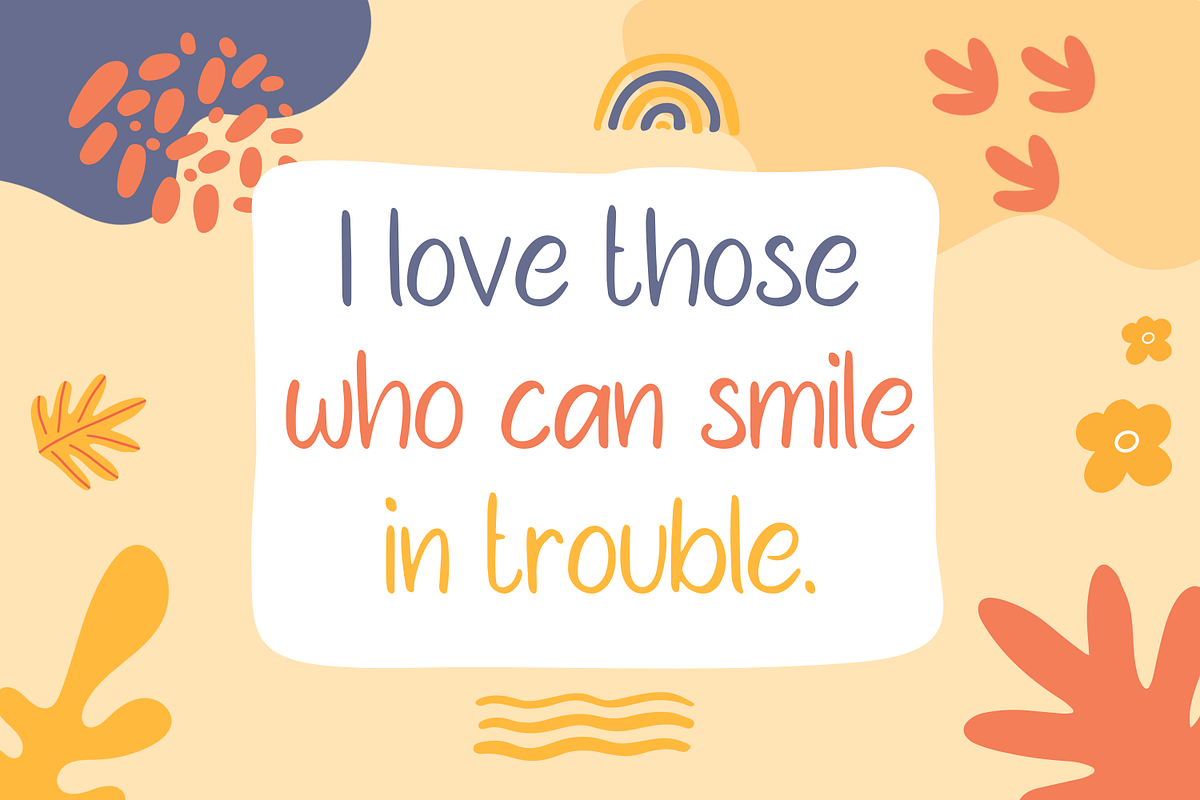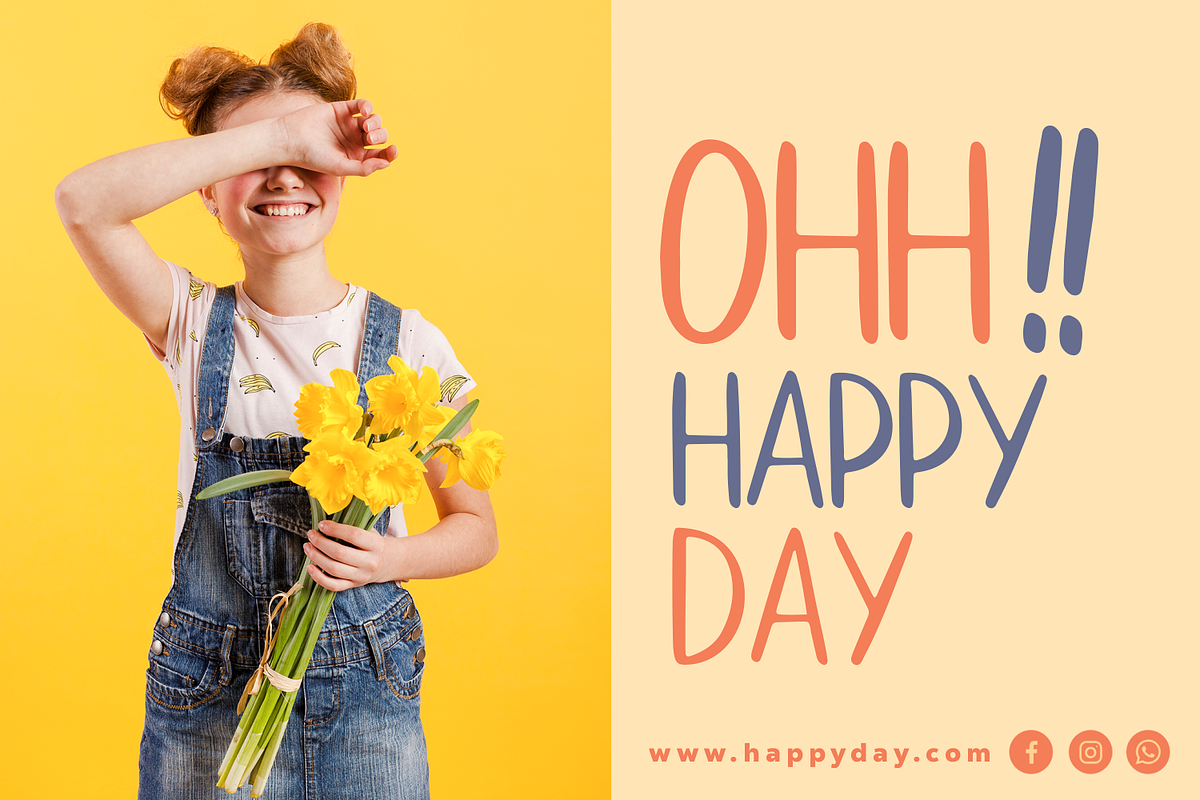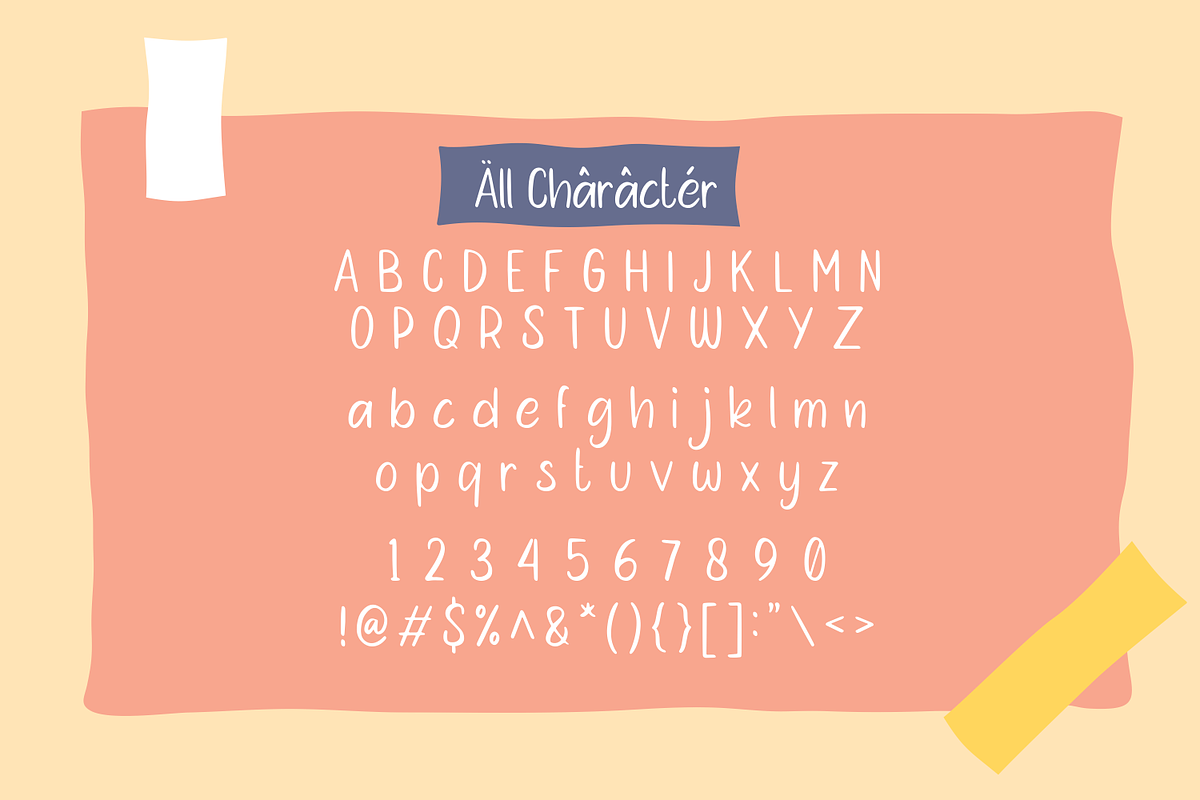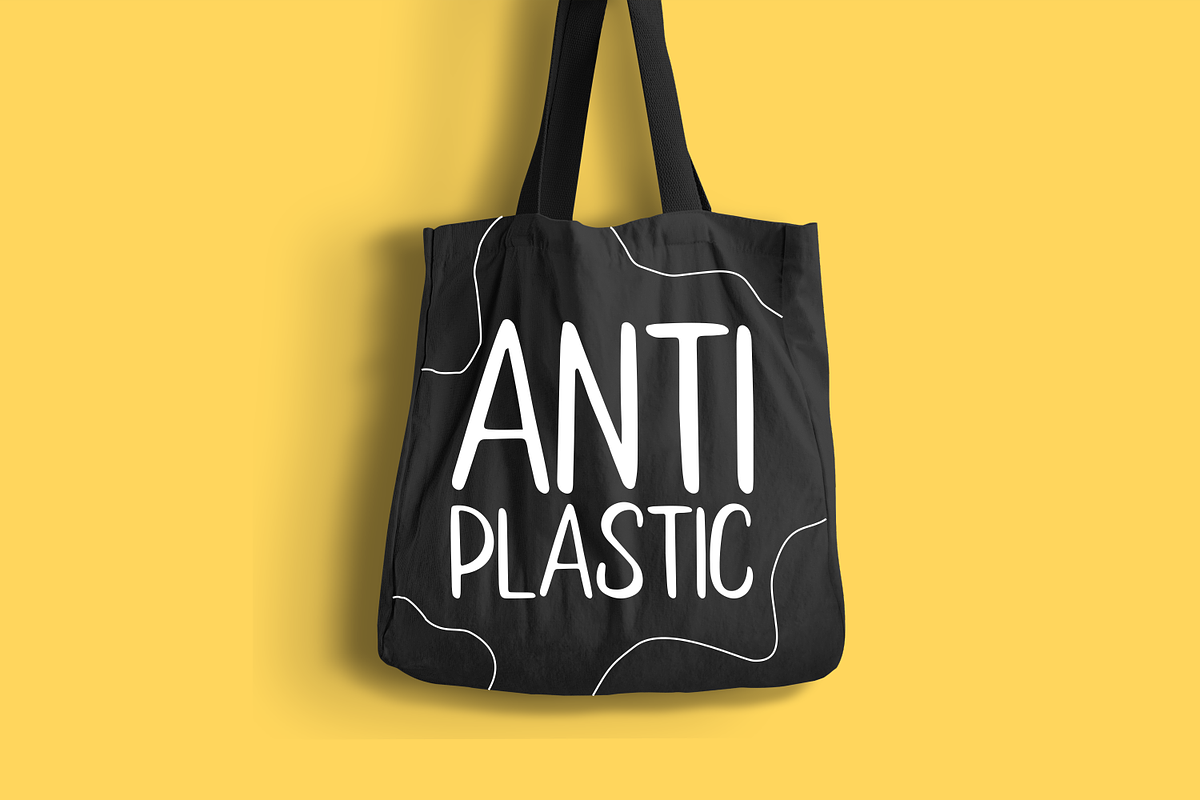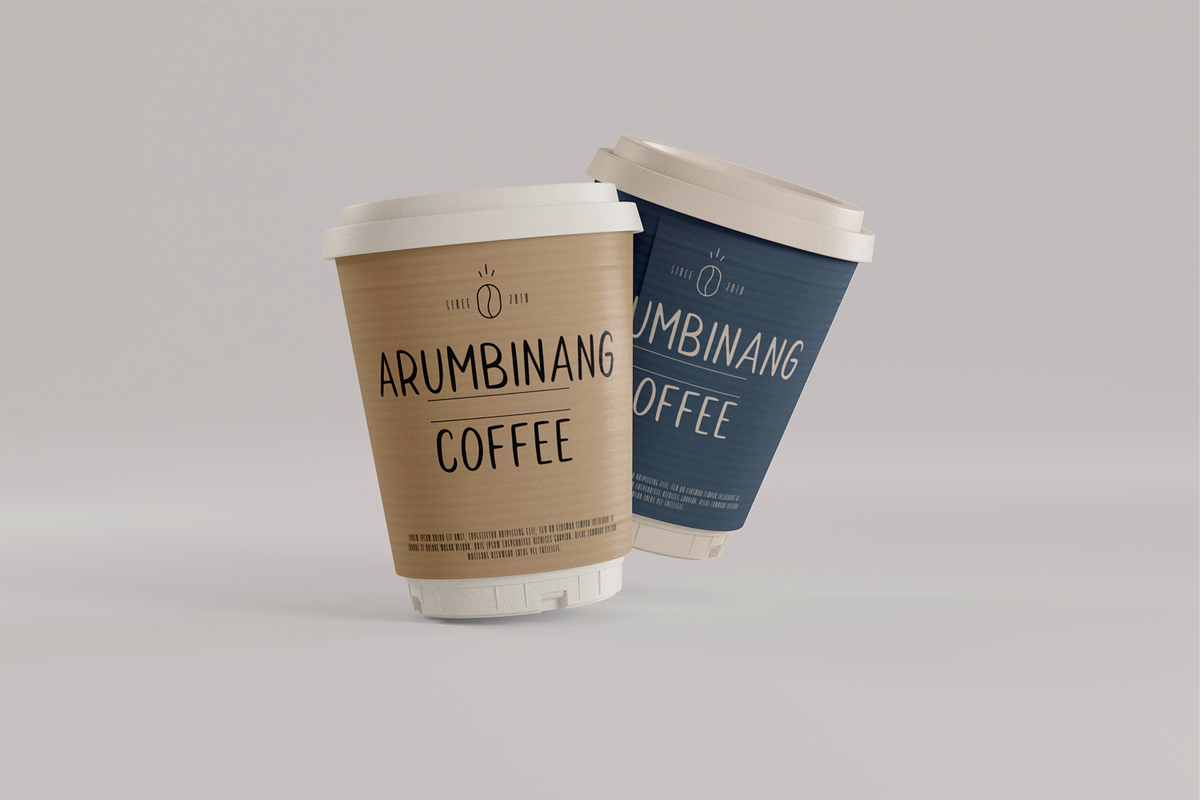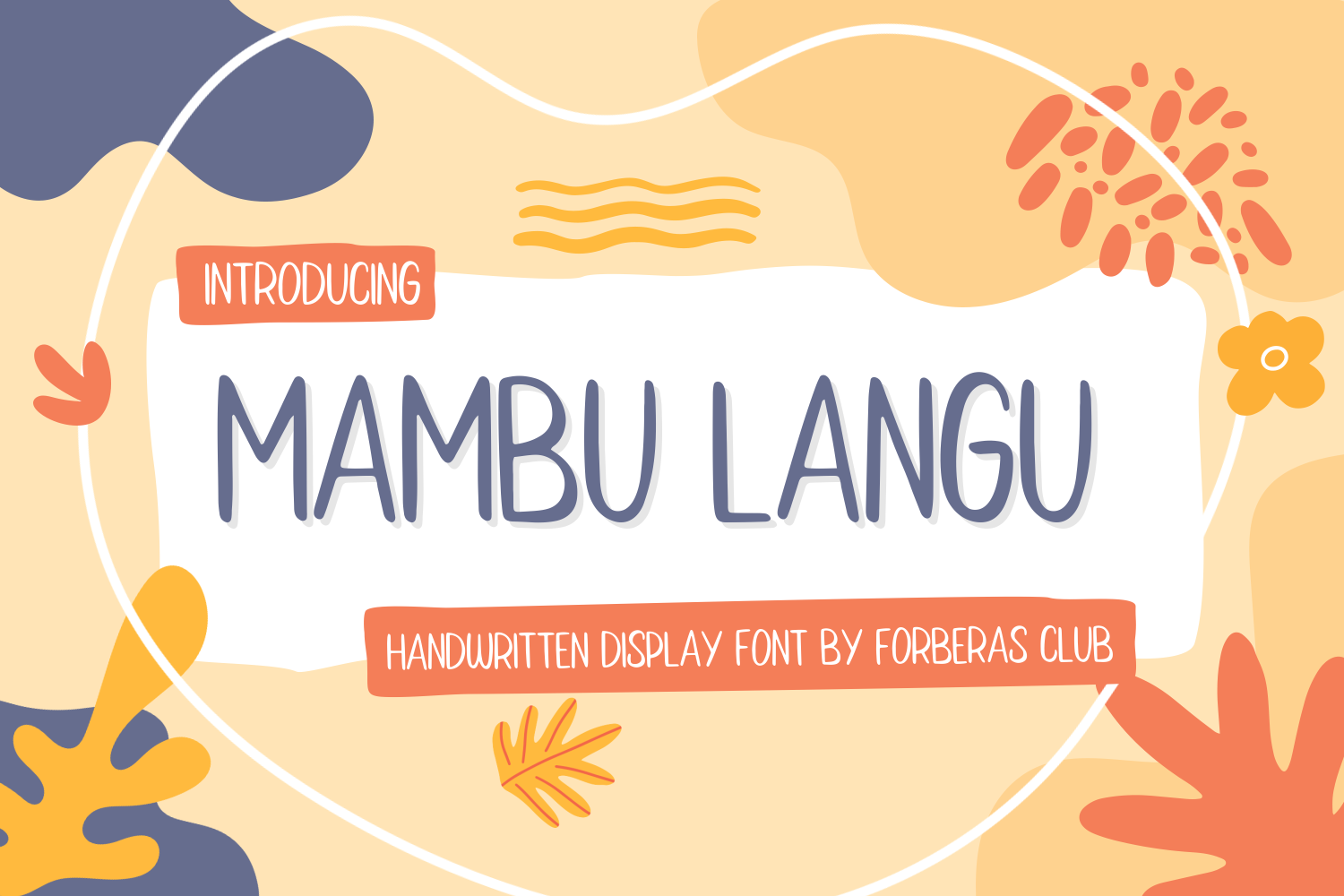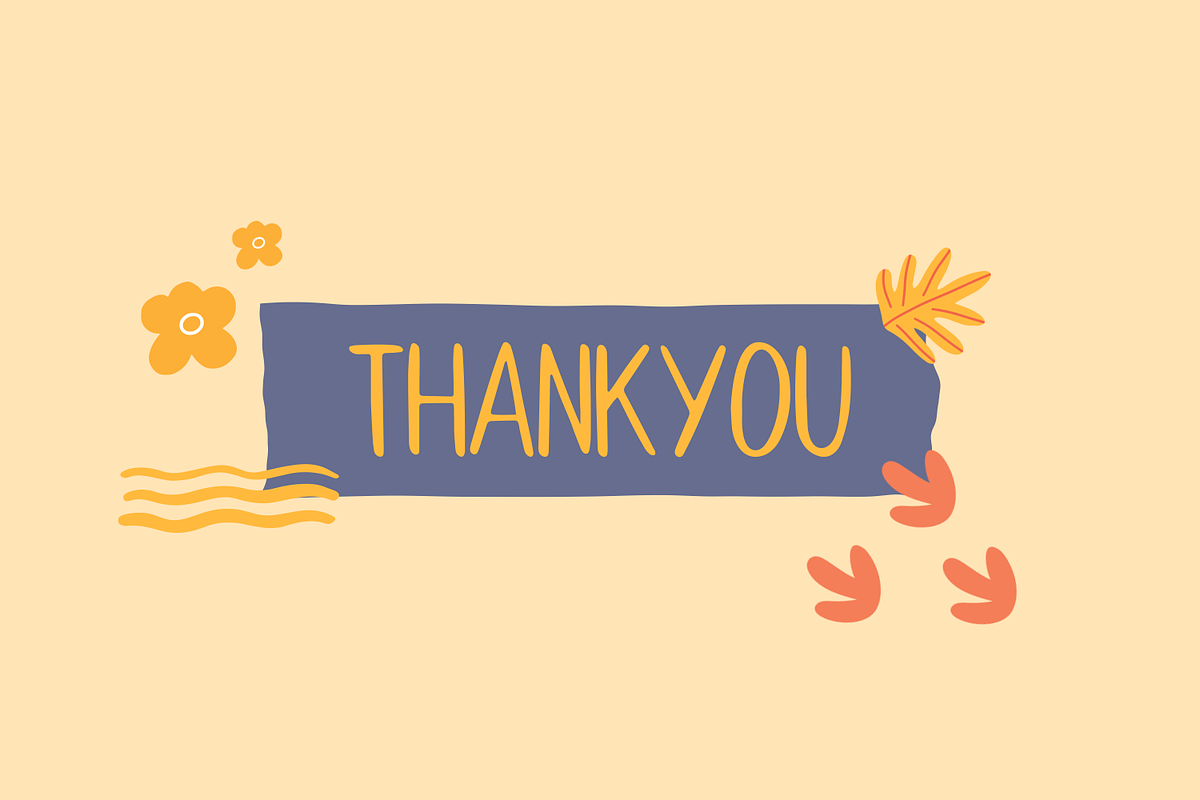
Mambu Langu | Handwritten Font
Introducing Mambu.Langu by Forberas
Modern and beautiful handwritten script font! Great for wedding greeting cards, logos, branding materials, Invitation, business cards, quotes, posters, Cricut artwork and more!